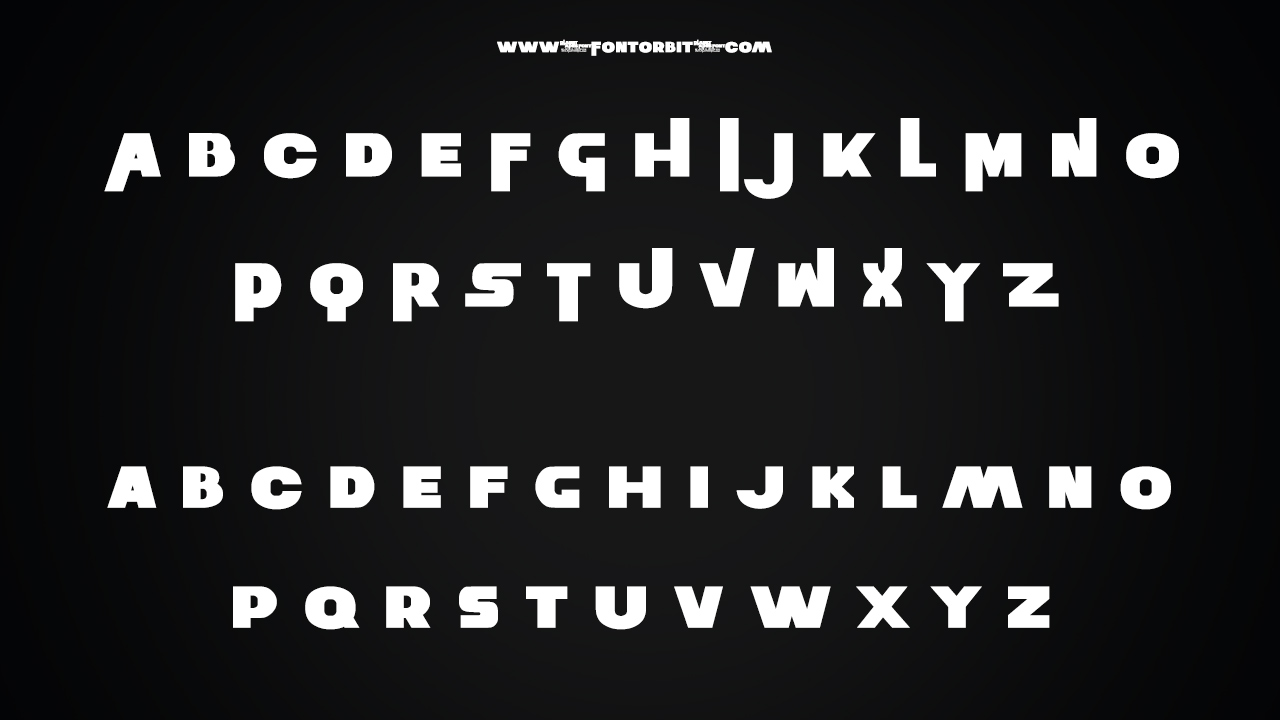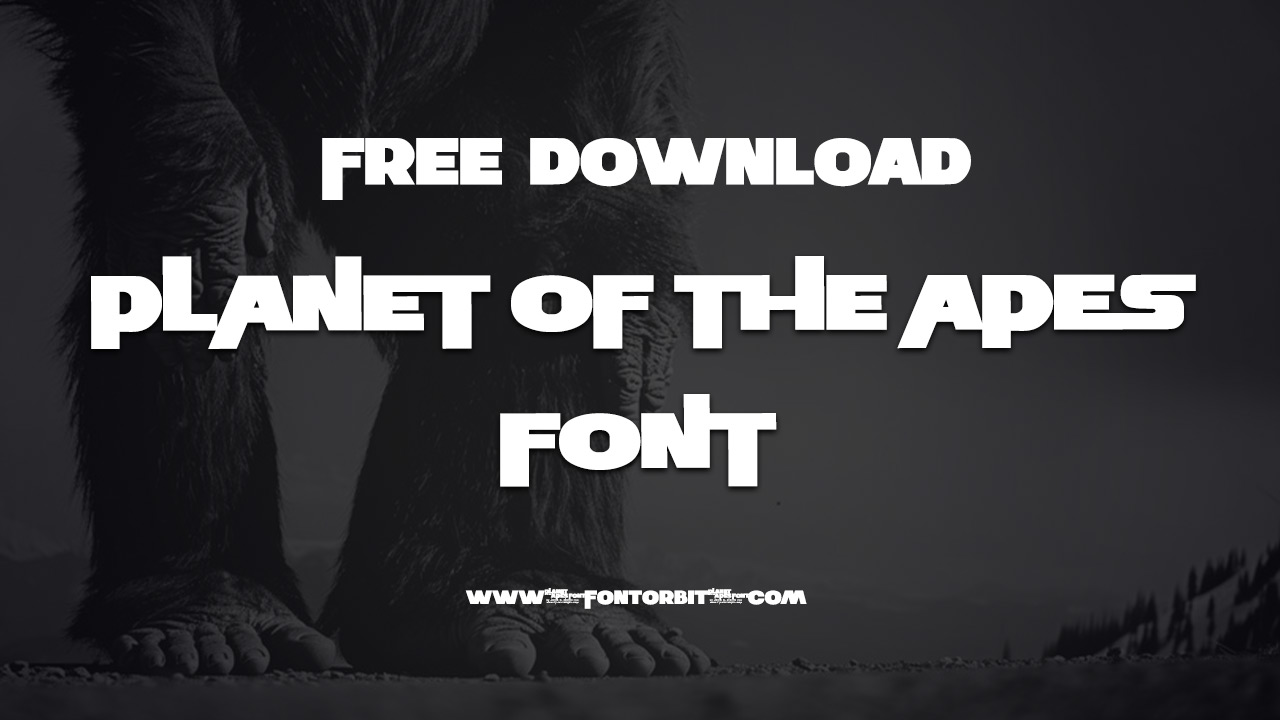
The Planet of the Apes font is a modern, sharp, and cinematic typeface inspired by the logo of the famous movie series “Planet of the Apes.” Designed by Jens R. Ziehn and released in 2017, this font comes from the Fancy Display font family.
The edgy design of the letters reflects a wild, futuristic theme, fitting perfectly with the sci-fi genre the movie franchise embodies.
‘Planet Of The Apes’ Family Includes
This font family is versatile, with styles suited for a wide range of designs. Whether for branding or poster creation, it brings an intense and bold look to any project. It includes:
Planet of the Apes Regular
Notable Uses of ‘Planet of the Apes’
The font has been notably used in various creative contexts, including:
- Movie titles and posters for the “Planet of the Apes” franchise.
- Promotional materials for futuristic or post-apocalyptic themes.
- Branding projects, particularly for entertainment and sci-fi content.
- Video games with a sci-fi or dystopian theme.
- Merchandise for fan clubs and film-related memorabilia.
The Planet of the Apes font is perfect for projects that require a bold and commanding presence. Some ideal uses include:
- Movie and game posters with a sci-fi or futuristic theme.
- Logos for tech or entertainment brands that want a daring and modern look.
- Marketing materials for events related to film, gaming, or space exploration.
- T-shirt designs and other merchandise that want to evoke a retro-futuristic feel.
The Planet of the Apes font is an excellent choice for anyone looking to create impactful, futuristic designs. Its unique style makes it ideal for posters, branding, and promotional content, especially those in the entertainment, sci-fi, or tech industry. Its striking resemblance to the typography of the iconic film series will grab attention and evoke a strong, adventurous vibe.
2.What Style Of Font Is Planet Of The Apes?
It is a fancy, display-type font with a bold, futuristic design.
3.Can I Use Planet Of The Apes For A Logo?
Yes, it can be used for logos, especially for sci-fi, entertainment, or tech brands.
5.Is Planet Of The Apes Available In Different Styles?
Yes, it has variations like Regular, Bold, Italic, and 3D.
6.Where Can I Use This Font?
It’s great for movie posters, gaming projects, and sci-fi-themed branding.
7.What Kind Of Mood Does This Font Convey?
It conveys a bold, futuristic, and adventurous mood, ideal for dramatic designs.